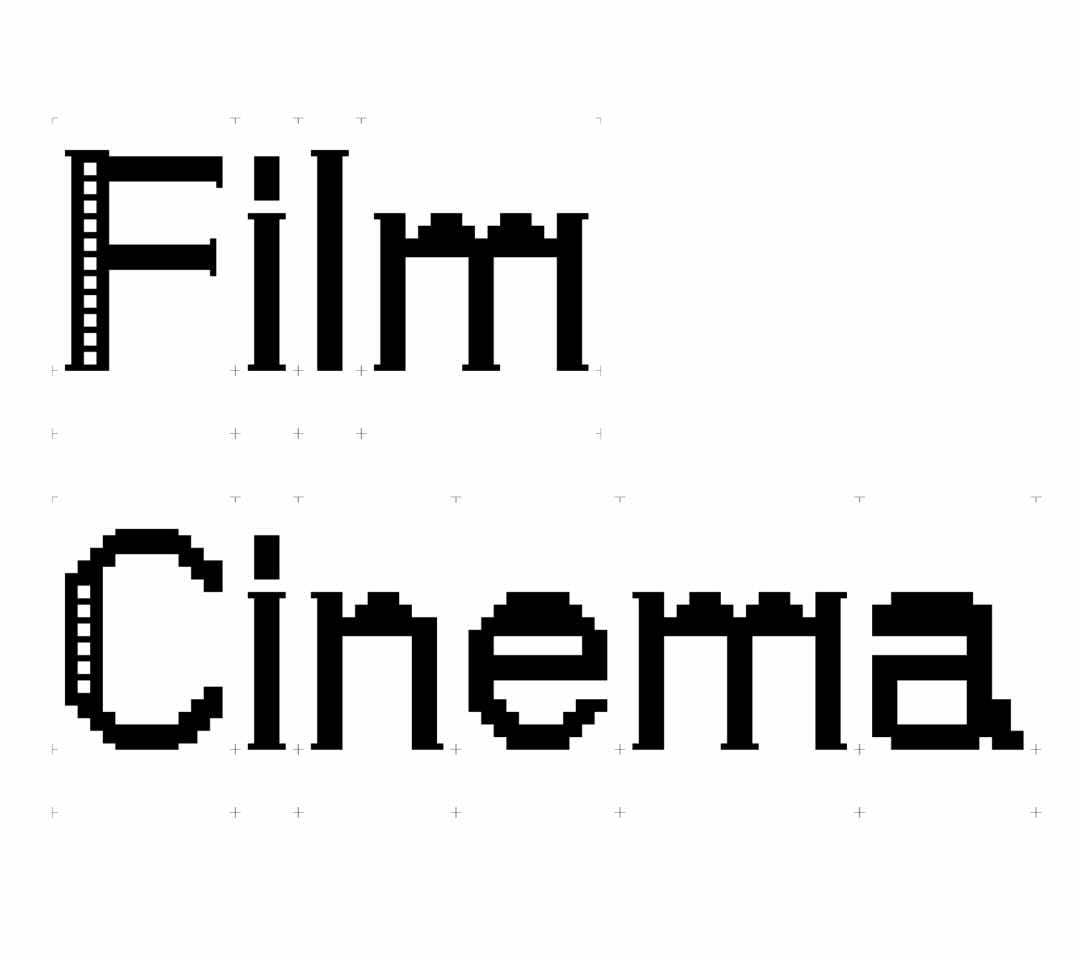
The Cinema Museum has a very good collection of a number of precious cultural relics about cinema, but also carries the unique film culture of that generation. In the design process of building Cinema Museum, I adopted the pixel style design, integrated the Victorian architectural style, and emphasized the structure and corners of the font. At the same time, because my theme is related to cinema, and most of the equipment displayed in museums are film projection equipment, I also integrate the element of film into the font, increasing the retro sense of the font.